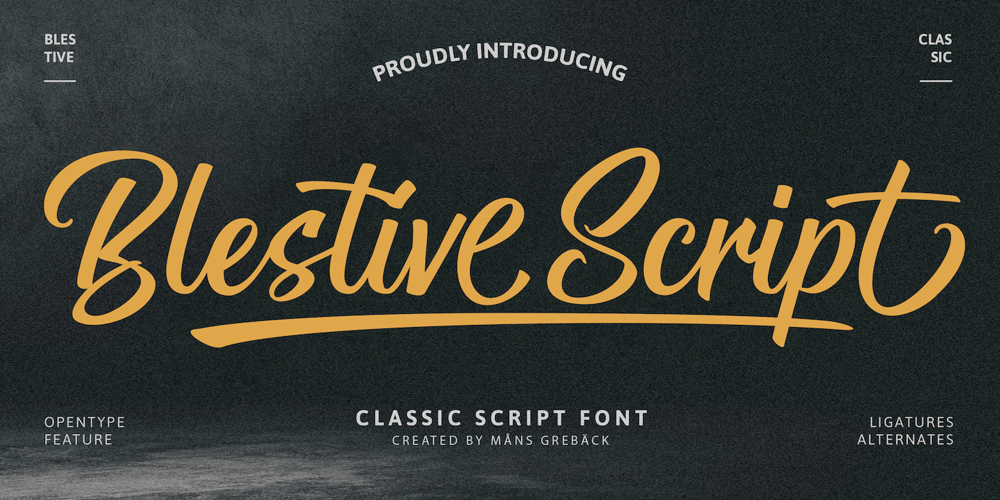
Blestive Script Font Family was designed by Måns Grebäck and published by Mans Greback. Blestive Script contains 4 styles and family package options. Blestive Script is a cool calligraphy typeface. This marker lettering is provided in Regular, Italic, Bold and Bold Italic. Perfect for a logotype or headline, use this handwritten type to express life and optimism. Use underscore _ anywhere in a word to make a swash underline. Example: Won_derUse # after any word to make a swash letter. Example: Cute#Use multiple underscores after any word to make swashes of different length.Example: Weat___her(Download required.)The font is built with advanced OpenType functionality and has a guaranteed top-notch quality, containing stylistic and contextual alternates, ligatures and more features; all to give you full control and customizability. It has extensive lingual support, covering all Latin-based languages, from Northern Europe to South Africa, from America to South-East Asia. It contains all characters and symbols you’ll ever need, including all punctuation and numbers.